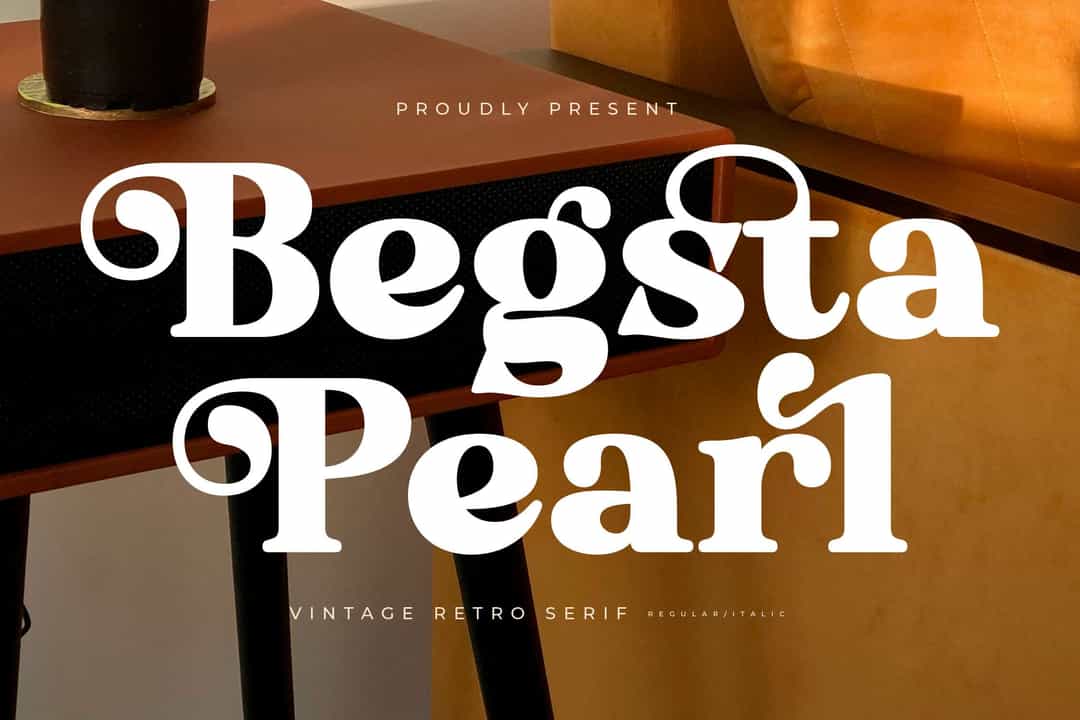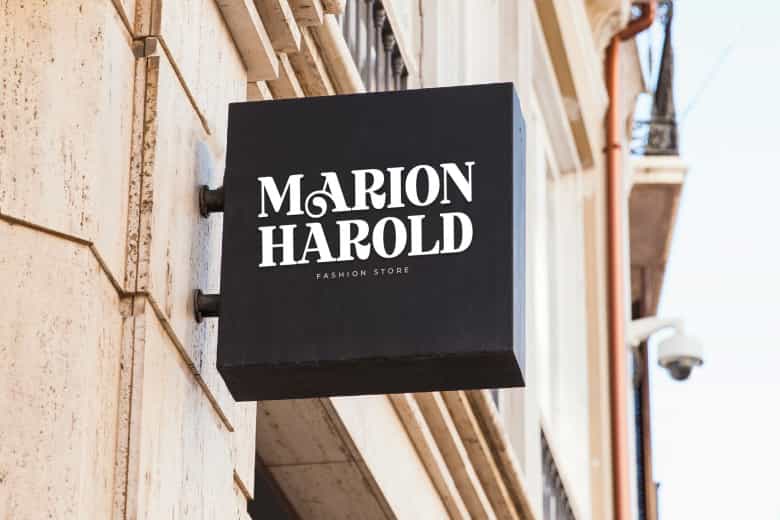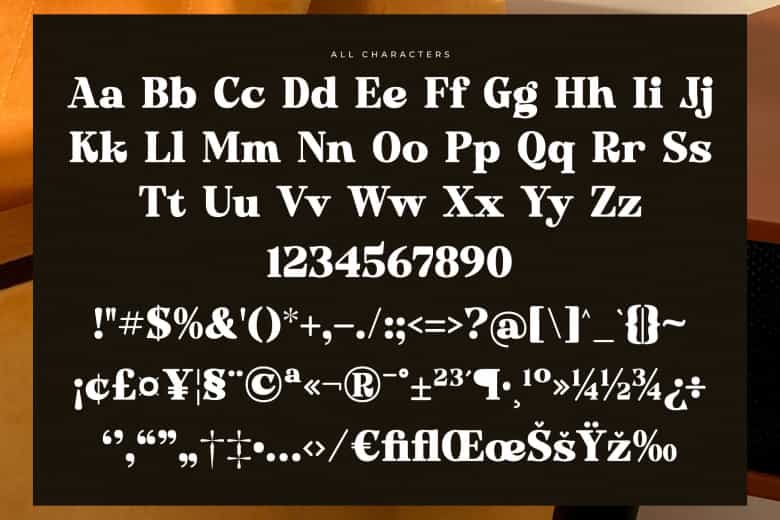
Begsta Pearl – vintage retro serif font, perfect for all projects, including logos, branding ideas design, homeware packaging for products cups posters, quotes bags for shopping, t-shirts, book covers, name cards greeting cards, invitation cards, labels and watermarks, photography and special events. It is also suitable for every other high-end and stunning projects that require an Luxury Serif style.